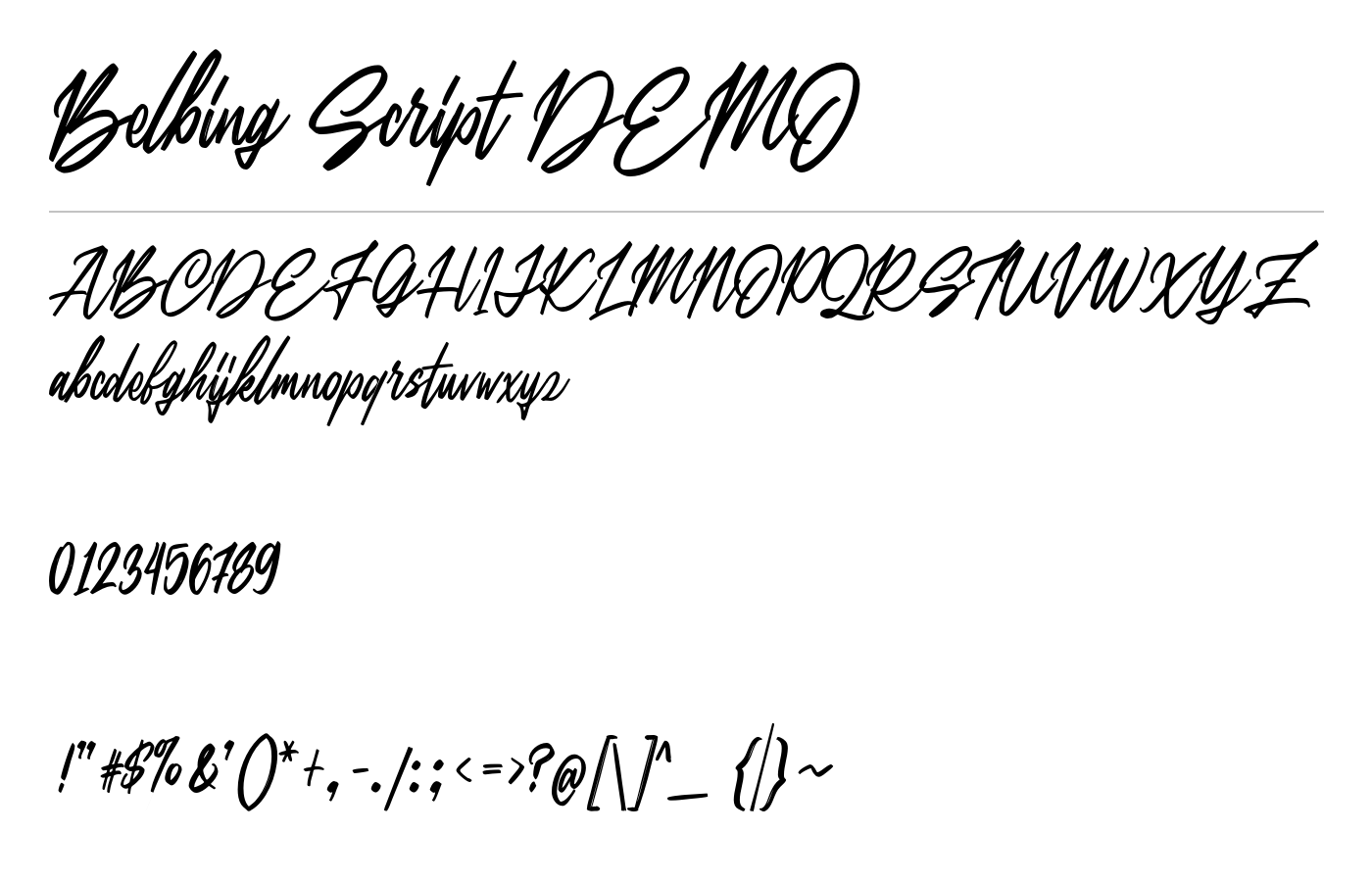
Belbing Script DEMO is a stylish and lively script font with flowing, handwritten strokes that convey a sense of elegance and personal touch. Its dynamic, slightly condensed letterforms and smooth, varied line weights make it perfect for creative projects seeking a warm yet modern feel. This font works beautifully in branding, invitations, and headlines where a friendly, artistic impression is desired.
Belbing Script DEMO Font